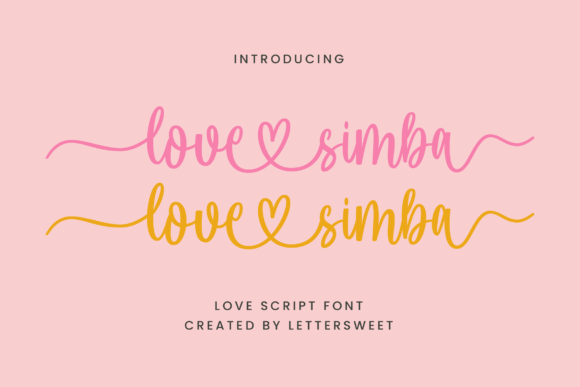
Step into the enchanting world of Love Simba, a captivating handwritten font crafted to ignite your creativity and bring your designs to life. Its delicate and elegant strokes, inspired by the grace of a lion's mane, flow harmoniously to create beautiful and well-balanced characters.
With Love Simba, you'll discover a font that harmonizes effortlessly with a symphony of design styles. Its versatile nature allows it to enhance everything from heartfelt quotes to vibrant branding, adding a touch of elegance and sophistication to your projects.
Unlike ordinary fonts, Love Simba is a key that unlocks a treasure trove of creative possibilities. Its PUA encoding grants you easy access to an array of glyphs, swashes, and ligatures, inviting you to unleash your imagination and create designs that captivate and inspire.
Indulge in the beauty of Love Simba, a font that whispers grace and elegance into your designs. Elevate your quotes, branding, invitations, and social media posts with its timeless appeal. Let Love Simba be your muse as you craft designs that resonate with your audience and leave a lasting impression.